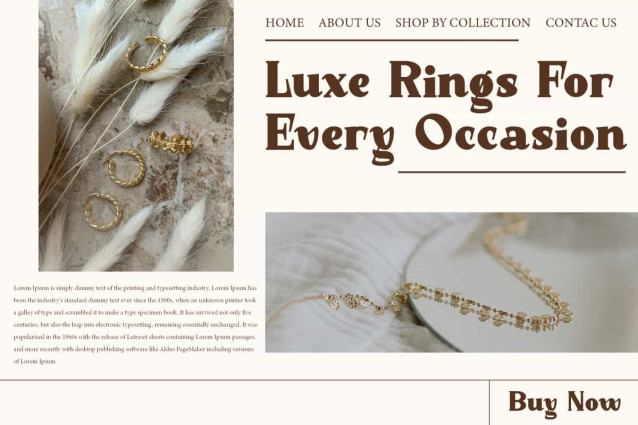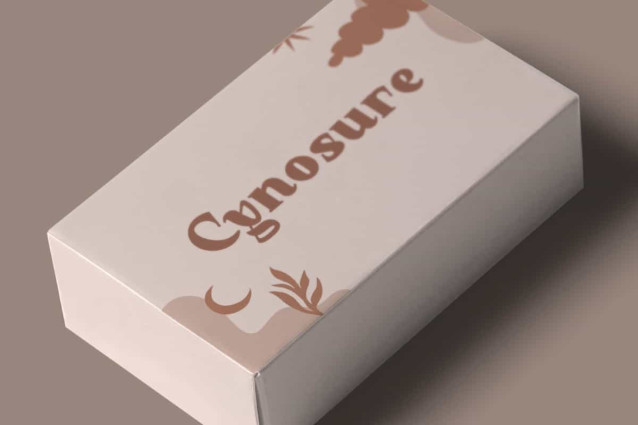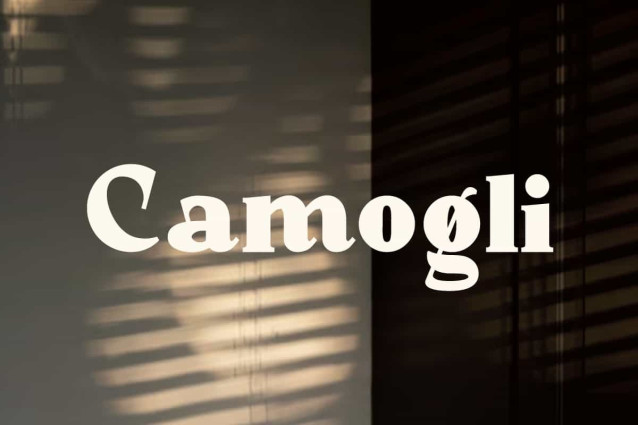
Camogli Font
Camogli Font is an elegant serif display font with a classic and modern touch that blends harmoniously. Designed with a bold letter character, but still has a smooth curve that gives a luxurious and classy impression. Suitable for any projects, such as brand image, brochure, label, magazine cover, mockup template, packaging, poster, quotes, signage, stationery, website, and more!
Camogli Font includes a complete set of Uppercase and Lowercase Basic Characters, Numbers, Punctuation and Symbols. This font has an bold look, making it an ideal choice for a variety of industries, such as advertising, beauty product, boutique, cafe, craft, event or wedding organizer, photography, real estate, restaurant, spa, travel, and so on.